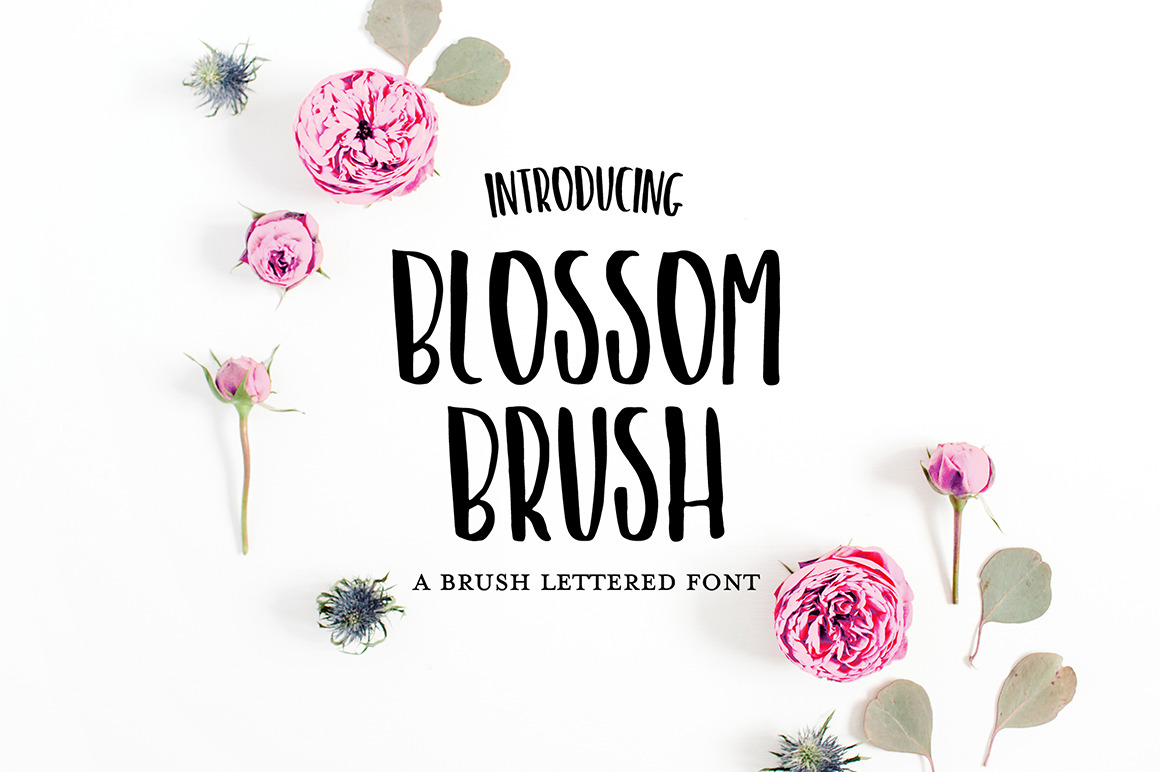
BLOSSOM BRUSH Font
BLOSSOM BRUSH is a pretty, sans serif display font with slightly distressed edges that give it that natural hand-drawn character. Lowercase letters recommended for use as accent letters.